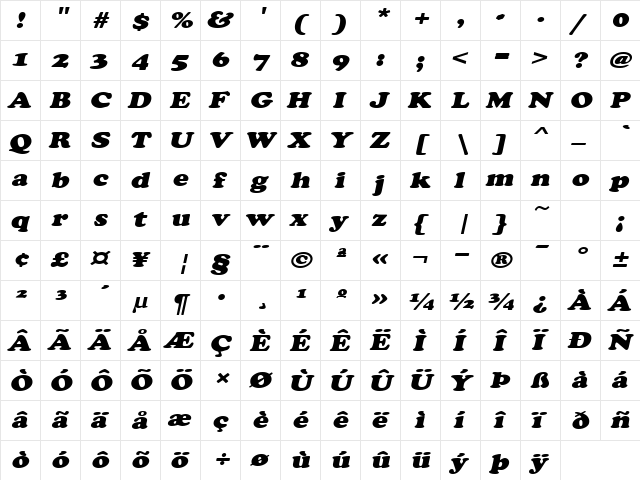
MarshmallowExtended Italic
Design Context for MarshmallowExtended Typeface
MarshmallowExtended takes a measured approach to typography — its balanced proportions and neutral character make it a reliable workhorse for both digital and print work. The dynamic lean of this cut emphasises speed and emphasis in any layout.
Pro Tip: Try MarshmallowExtended for annotation and caption copy alongside an upright companion — the contrast in angle creates a dynamic but ordered typographic system.